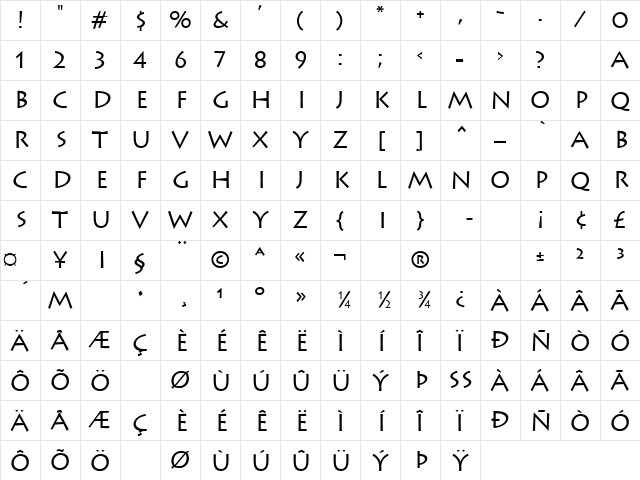
Wizard 1 Regular Free Font
Wizard 1 Regular
Design Context for Wizard 1
Wizard 1 is a composed and adaptable typeface that performs quietly and consistently across a wide range of design contexts.